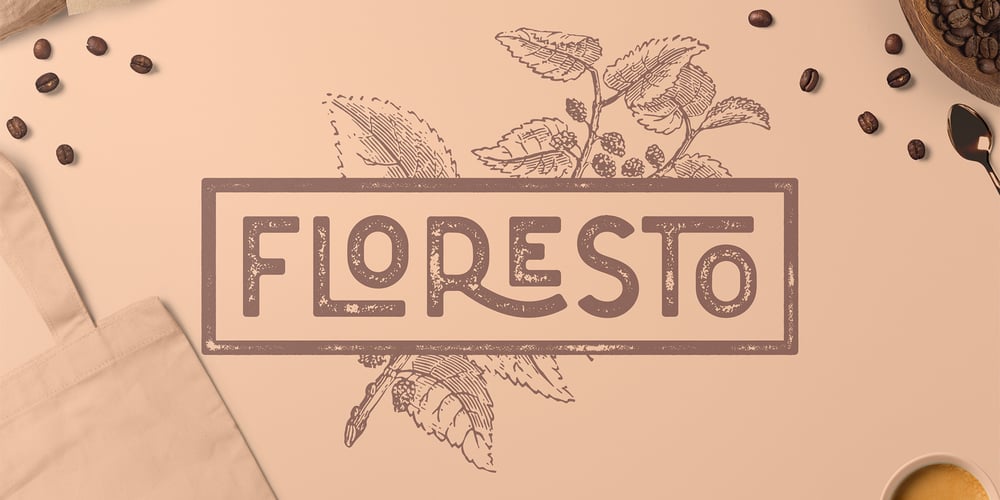
Florest Textured Font Family was designed by Kurt Harahap and published by Kaligra.co. Florest Textured contains 3 styles and family package options. The Floresto Textured is a Modern vintage sans serif font, with Roughed edges and touch of many beautiful alternate characters make this font look Elegant & stylist. It contains an uppercase alphabet with numbers and symbols. Designed with Stylistic Alternates and Contextual Alternate in some characters that allows you to mix and match pairs of letters to fit your design.